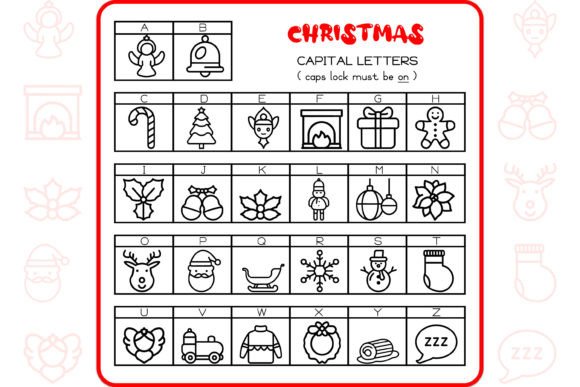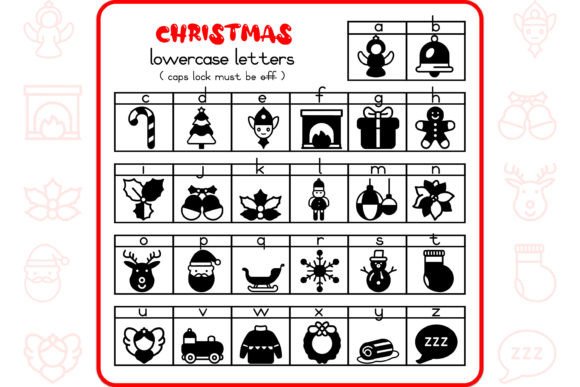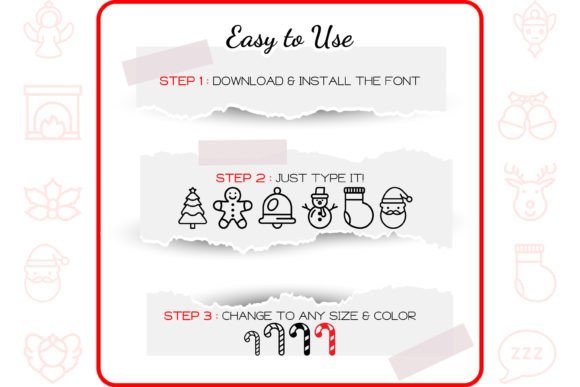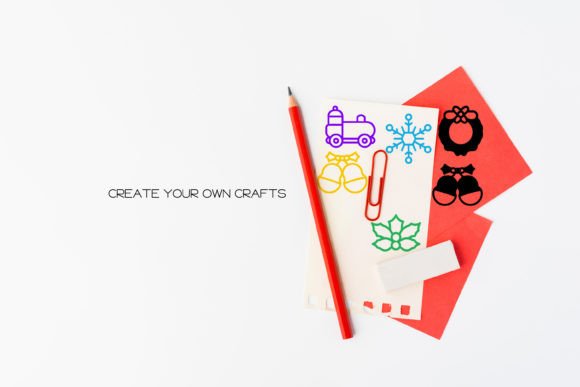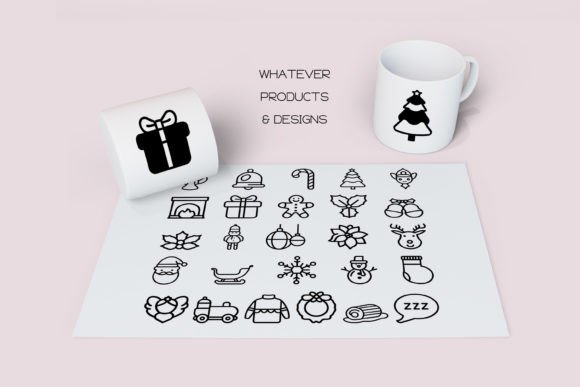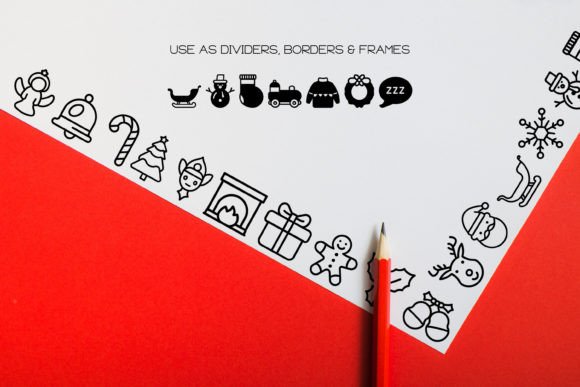
Deck the Halls with Christmas Icons Font: A Festive Dingbat Font for Designers and Crafters
Are you looking for a unique and adorable font to add a touch of Christmas magic to your designs? Look no further than the Christmas Icons Font! This delightful dingbat font is packed with 52 festive icons in two styles: Outline and Filled-Outline. With its charming illustrations, Christmas Icons Font is sure to make your designs stand out and get you in the holiday spirit.
What is Christmas Icons Font?
Christmas Icons Font is a specially designed dingbat font that features 52 Christmas-themed icons, including trees, snowflakes, bells, stockings, and many more. The font comes in two styles: Outline and Filled-Outline, giving you the flexibility to choose the perfect look for your designs. Whether you’re a designer, crafter, or DIY enthusiast, this font is perfect for adding a touch of festive fun to your projects.
Key Features of Christmas Icons Font
- 52 unique Christmas icons: From snowmen to presents, this font has a wide range of festive illustrations to get you in the holiday mood.
- 2 styles: Outline & Filled-Outline: Choose from two stylish options to suit your design needs.
- Scalable: The font is designed to be scalable, making it perfect for use on various platforms and devices.
Design Ideas with Christmas Icons Font
With Christmas Icons Font, the design possibilities are endless! Here are a few ideas to get you started:
- Holiday greeting cards: Create personalized Christmas cards with the font’s festive icons.
- Social media graphics: Add a touch of Christmas magic to your social media posts with the font’s cute illustrations.
- DIY crafts: Use the font to create custom iron-on designs, stickers, or stencils for your holiday crafts.
- Web graphics: Add some festive flair to your website or blog with the font’s icons.
Why Designers and Crafters Love Christmas Icons Font
Christmas Icons Font is a must-have for designers and crafters who want to add a touch of festive fun to their projects. Here are a few reasons why:
- Unique and exclusive: The font’s illustrations are carefully crafted to be unique and exclusive, making your designs stand out from the crowd.
- Time-saving: With 52 icons at your fingertips, you can quickly and easily add festive flair to your designs without spending hours creating custom illustrations.